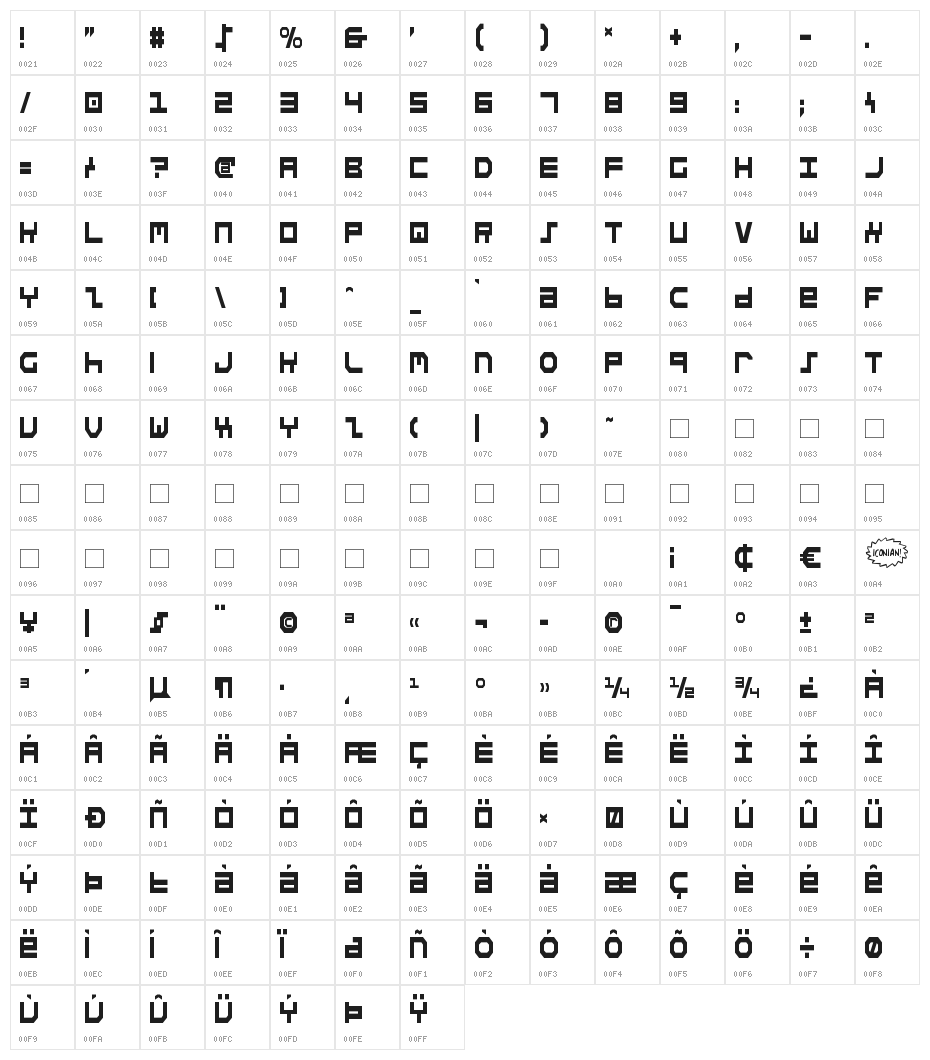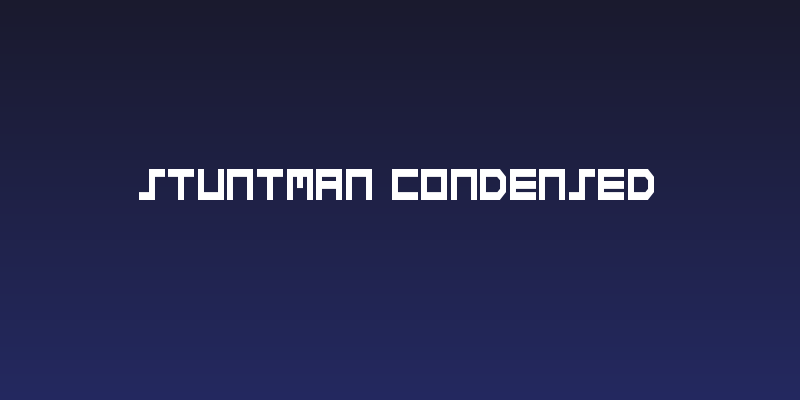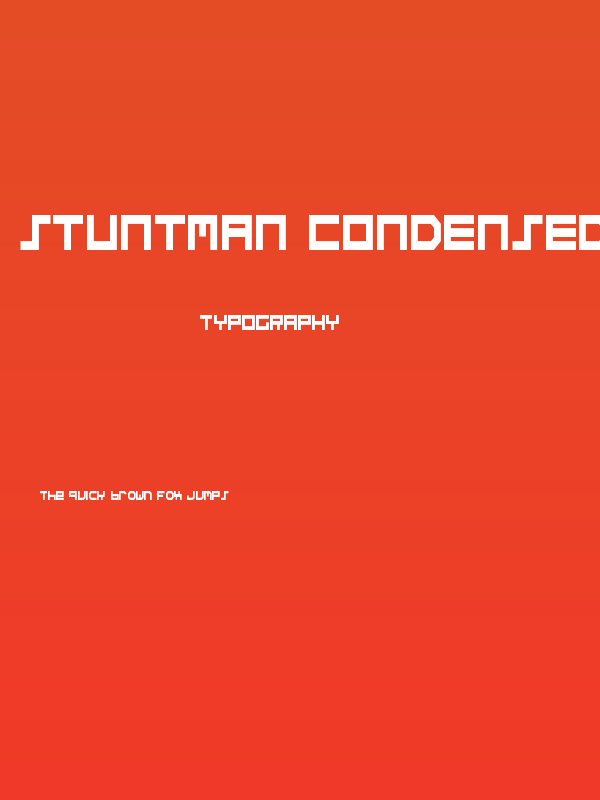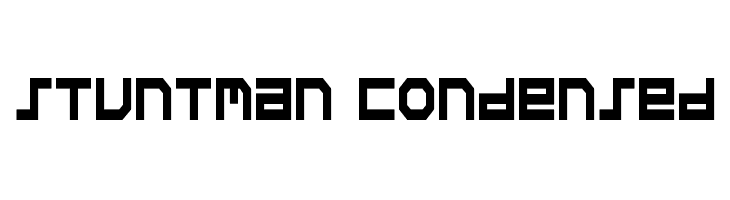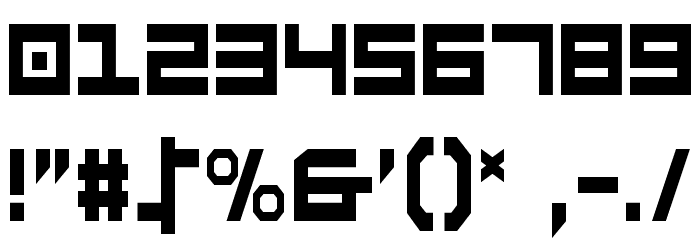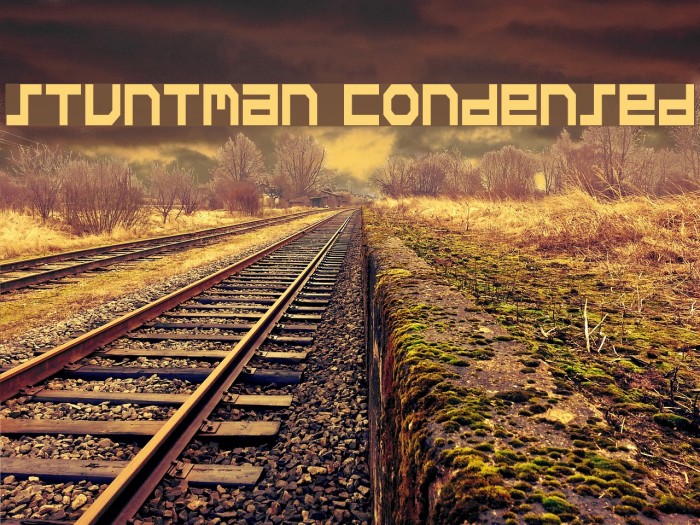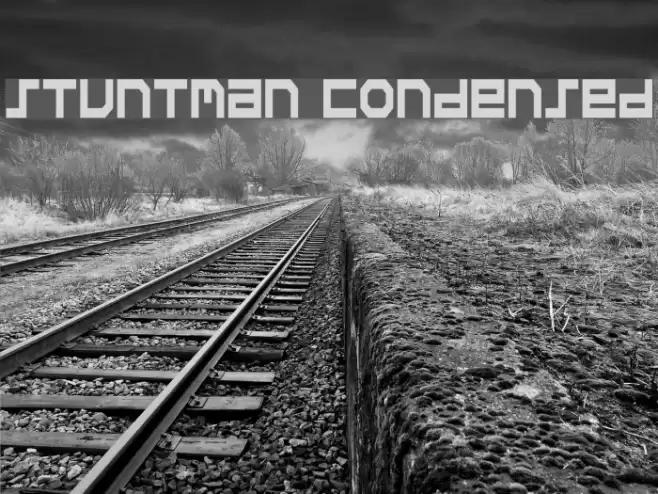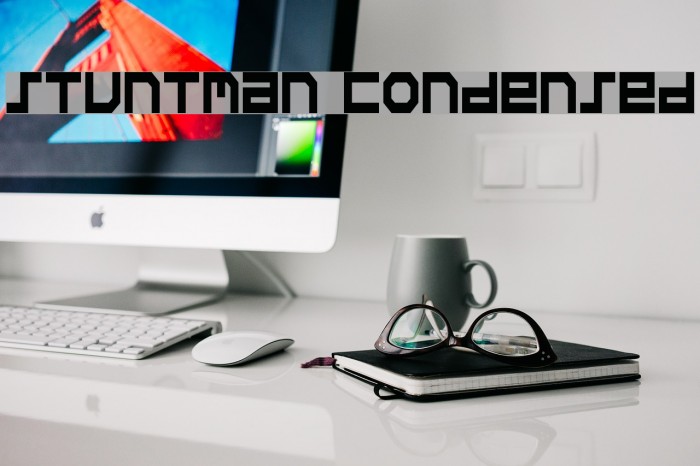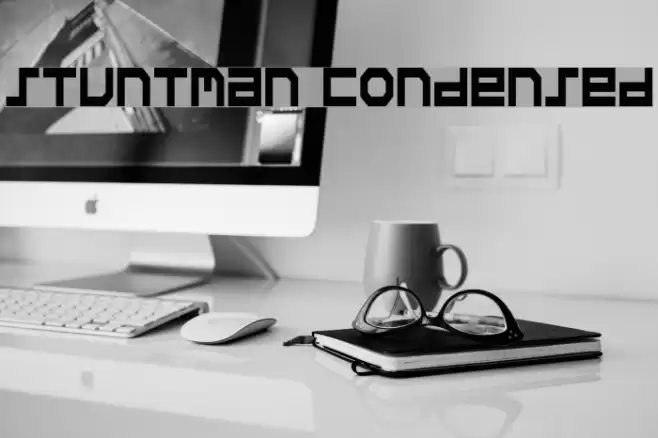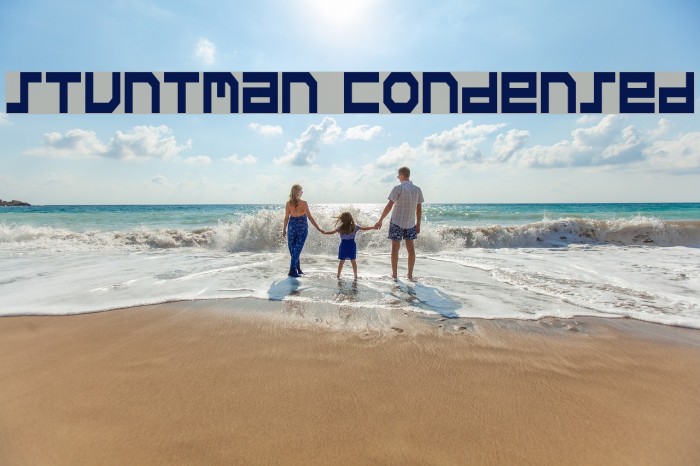
Stuntman Condensed Font
| おすすめプロジェクト | Ideal for use in technology branding, video game titles, futuristic posters, and any project requiring a strong, modern aesthetic. |